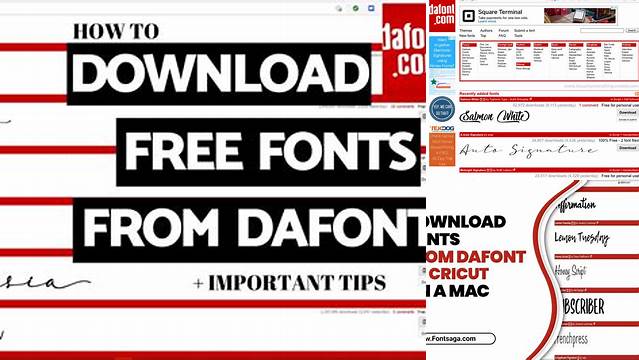
Using Dafont.com Fonts: A Beginner's Guide
Finding Your Perfect Font on Dafont.com
Dafont.com is seriously a goldmine, guys, when it comes to free fonts. Whether you're a graphic designer, a hobbyist crafter, or just someone looking to spice up a school project, this site has got your back. The sheer variety is astounding – you've got everything from elegant script fonts that scream sophistication to chunky, retro-inspired styles that shout fun. Navigating the site is a breeze, too. They've organized everything into categories like 'Basic,' 'Script,' 'Fancy,' 'Techno,' and even 'Gothic.' This makes it super easy to narrow down your search if you already have a vibe in mind. For instance, if you're designing a wedding invitation, you'll probably gravitate towards the 'Script' or 'Elegant' sections. On the other hand, if you're creating a flyer for a rock concert, the 'Gothic' or 'Distressed' categories might be your go-to. Don't forget to check out the "New" and "Top" sections; these often highlight popular or recently uploaded fonts that could be exactly what you're looking for. I always spend a good chunk of time just browsing here, getting inspired by the endless possibilities. It’s like a visual buffet for typography lovers. Plus, the preview feature is awesome – you can type in your own text to see how it looks before you commit to downloading. This saves so much time and guesswork, making the whole font-finding process way more enjoyable and efficient. Seriously, take your time here, explore the different categories, and don't be afraid to try out custom text previews. You'll be amazed at what you can discover!
Using Dafont Fonts in Web Design (CSS)**
Alright, web developers and designers, let's talk about using those awesome free fonts from Dafont.com on your websites. Now, this is a bit different from desktop use, because you can't just directly link to a font file you downloaded and zipped from Dafont in your CSS. Web font usage requires specific formats and often a different approach for licensing. While Dafont offers tons of fonts, most are not licensed for direct web use. Many explicitly state they are for desktop use only. If you do find a font on Dafont that specifically states it's free for commercial and web use (which is rare), you'd typically need to convert the .ttf or .otf files into web-friendly formats like WOFF (Web Open Font Format) or WOFF2. You can use online converters for this. Then, you'd upload these web font files to your web server and link to them in your CSS using the @font-face rule. For example: @font-face { font-family: 'MyDafontFont'; src: url('path/to/my-dafont-font.woff2') format('woff2'), url('path/to/my-dafont-font.woff') format('woff'); } Then you'd use font-family: 'MyDafontFont', sans-serif; in your CSS rules. However, a much more common and legally sound practice for web design is to use services like Google Fonts or Adobe Fonts. These services provide a vast library of high-quality, properly licensed fonts that are optimized for web use and incredibly easy to implement. They handle the conversion and hosting for you. So, while Dafont is fantastic for desktop creativity, for web projects, sticking to dedicated web font resources is generally the way to go to ensure you're compliant and your site loads efficiently. Always double-check the license before attempting any web implementation!
Troubleshooting Common Font Installation Issues
Hey guys, sometimes when you download and try to install fonts from Dafont.com, things don't go quite as smoothly as planned. Don't panic! Most font installation problems are pretty common and have easy fixes. One frequent issue is that the font doesn't appear in your applications after installation. If this happens, the first thing to try is closing and reopening the specific application you're trying to use the font in. If that doesn't work, try restarting your entire computer. This often forces the operating system and applications to refresh their font cache and recognize the new font. Another problem can be corrupted font files. Sometimes, the .zip download might get corrupted during transit, or the font file itself might have errors. If you suspect this, try downloading the font again from Dafont.com. Make sure your internet connection is stable during the download. Also, ensure you're extracting the .zip file correctly; sometimes incomplete extractions can cause issues. If you're trying to install multiple fonts at once and run into trouble, try installing them one by one to see if a specific font is causing the problem. You might also encounter issues if you have duplicate font names installed. Check your system's font management tool (like Font Book on Mac or the Fonts folder on Windows) to see if you already have a font with the same name and remove the older version before installing the new one. Lastly, always make sure you have the correct file type (.ttf or .otf) and that it's not damaged. If a font file won't open or preview, it's likely corrupted, and you'll need to find an alternative or try downloading it again. Patience is key here, and usually, one of these steps will get your new font working perfectly.
Updating Your Font Library with New Discoveries
Keeping your font library fresh and exciting is key to maintaining creativity, and Dafont.com is the perfect place to regularly update it. Think of your font collection like your wardrobe; you need new pieces to keep things interesting! I make it a habit to check Dafont at least once a month, especially the 'New' and 'Top' sections. You’d be surprised how many amazing fonts are added weekly. It’s a great way to stay on top of typography trends. Maybe you're working on a project with a specific theme – perhaps a vintage poster or a futuristic sci-fi book cover. A quick browse through Dafont’s categorized sections can yield the perfect typographic match. Don't just stick to the popular ones; sometimes, exploring the more niche categories like 'Doodads' or 'Symbols' can lead to unexpected treasures that add a unique flair to your designs. I often find myself downloading fonts that I don't have an immediate use for, simply because they catch my eye. Then, weeks later, when a project calls for exactly that style, I'm so glad I grabbed it when I had the chance. It’s also a good idea to keep a little note or a folder of fonts you like but haven't downloaded yet, perhaps from seeing them on other sites or designs. You can then search for similar styles on Dafont.com. Regularly updating your font library ensures you always have the right tool for any typographic task, preventing those frustrating moments where you can't find the perfect font. It’s an ongoing process that fuels your creative potential. So, go ahead, explore, download, and keep that font library vibrant!
Font Management Tools for Organization
As your font collection grows, thanks to awesome sites like Dafont.com, things can get a little chaotic. Trust me, I’ve been there! Having hundreds, maybe even thousands, of fonts installed can slow down your system and make finding the right font a real headache. That’s where font management tools come in handy, guys. These are applications designed specifically to help you organize, preview, activate, and deactivate your fonts without having to install and uninstall them from your system every time. For Mac users, the built-in Font Book is a decent starting point, but for more robust management, consider third-party options. Popular choices include Suitcase Fusion, RightFont, and FontBase. FontBase, for instance, is often praised for its sleek interface and cross-platform compatibility (Windows and Mac), and it even has a free tier that’s quite capable. These tools allow you to create collections or sets of fonts (e.g., 'Project X Fonts,' 'Script Fonts,' 'Web Fonts'), tag them with keywords, and preview them easily. The real magic is the ability to activate and deactivate fonts on demand. Instead of having hundreds of fonts cluttering your system's font menu, you only activate the ones you need for a specific project. This significantly speeds up application performance and keeps your font lists manageable. It’s like having a digital library for your typography. Investing a little time in setting up a font manager can save you countless hours of frustration and make your design workflow much smoother. Seriously, if you're serious about design and download fonts regularly, a font manager is a must-have tool.
Creative Ways to Use Dafont Fonts Beyond Basic Text
Don't just stop at using Dafont fonts for plain text, guys! These free fonts can be incredibly versatile if you get a little creative. Think outside the box! For instance, many decorative or script fonts look amazing when used as graphics. You can type out a word or phrase in a beautiful script font in Photoshop or Illustrator, convert the text to outlines (which essentially turns the text into vector shapes), and then manipulate those shapes. You can add textures, distress effects, or even use parts of the letterforms as design elements. Imagine using a bold, blocky font, converting it to outlines, and then using individual letters as repeating patterns in a background texture or as unique borders. Script fonts can be fantastic for creating custom logos or watermarks for your photos. A really unique display font could be perfect for designing unique social media post templates or even crafting custom quote graphics. Some fonts even come with extra glyphs or swashes that you can use as decorative flourishes. Explore the OpenType features if your software supports them! You can also experiment with layering fonts, using one font for the main text and another complementary font from Dafont for emphasis or a tagline. Play with color gradients, outlines, and shadows to give your text a whole new dimension. Some people even use fonts to create tileable patterns by repeating a specific font element. The possibilities are truly endless once you start thinking of fonts not just as text, but as artistic elements themselves. Dive in and experiment – you might surprise yourself with what you can create!
Understanding OpenType (OTF) vs. TrueType (TTF)
When you download fonts from Dafont.com, you’ll often see them offered in two main file formats: .otf (OpenType Font) and .ttf (TrueType Font). So, what’s the difference, and does it even matter? Generally speaking, for most everyday users, the difference isn't a huge deal, as both formats are widely supported by pretty much all modern operating systems and software. However, OpenType is technically the more advanced format. OpenType fonts were developed as a successor to TrueType and are capable of holding a lot more typographic features. These can include things like ligatures (where two or more letters are combined into a single character, like 'fi' or 'fl'), alternate characters (different versions of a letter), stylistic sets, swashes, and small caps – all within a single font file. This makes them incredibly powerful for designers who need fine control over typography. TrueType fonts are older but still very robust and widely compatible. They might not support the same range of advanced typographic features that OpenType can offer. So, if you see a font available in both .otf and .ttf, and you plan on using advanced features like ligatures or stylistic alternates in software like Adobe InDesign or Illustrator, choosing the .otf version is usually the better bet. If you're just typing out regular text in Word or using a simple font, either format will work just fine. Modern systems handle both well, so don't stress too much, but knowing the difference can help you leverage the full potential of some fonts.
Dafont.com's Categories Explained: Finding Your Niche
Dafont.com's categorization system is seriously genius, guys. It’s what makes finding that exact font so much easier than just scrolling endlessly. They’ve broken down the massive library into logical sections, catering to virtually any style or theme you can imagine. Let’s break down some of the key categories:
- Basic: This is your go-to for clean, classic fonts. Think Arial or Times New Roman alternatives. Perfect for body text, reports, and when you need something straightforward and readable.
- Script: This is where the magic happens for invitations, greeting cards, or anything needing an elegant touch. You’ll find everything from flowing calligraphy to more casual handwriting styles here.
- Fancy: This is a broad category for anything that’s a bit more decorative or unique. It often includes novelty fonts, vintage styles, or fonts with special effects. Great for headlines, logos, or posters.
- Horror: Perfect for Halloween projects, spooky themes, or anything with a dark, gothic, or distressed vibe. Think dripping letters or sharp, menacing serifs.
- Gothic: Similar to Horror, but often leaning more towards medieval or old-style lettering. Expect blackletter styles and ornate designs.
- Techno: This category is all about futuristic, digital, or sci-fi aesthetics. You’ll find blocky computer-style fonts, pixelated styles, and sleek, modern designs.
- <0xC2><0xA0>Bitmap: These fonts are made up of pixels and have a distinct retro, digital look, often associated with early computer graphics. They can be very striking for specific design needs.
- <0xC2><0xA0>Retro: Anything harkening back to the 70s, 80s, and 90s. Think disco fonts, pixel art fonts, or fonts with that chunky, geometric feel.
Exploring these categories allows you to quickly zero in on fonts that match your project's mood and style. Don't be afraid to click around; you might discover a style you never knew you needed!
Serif vs. Sans-Serif Fonts: Choosing the Right Style
When you're browsing Dafont.com, you'll notice fonts fall into two major stylistic camps: Serif and Sans-Serif. Understanding the difference is crucial for effective typography. Serif fonts have small decorative strokes, or